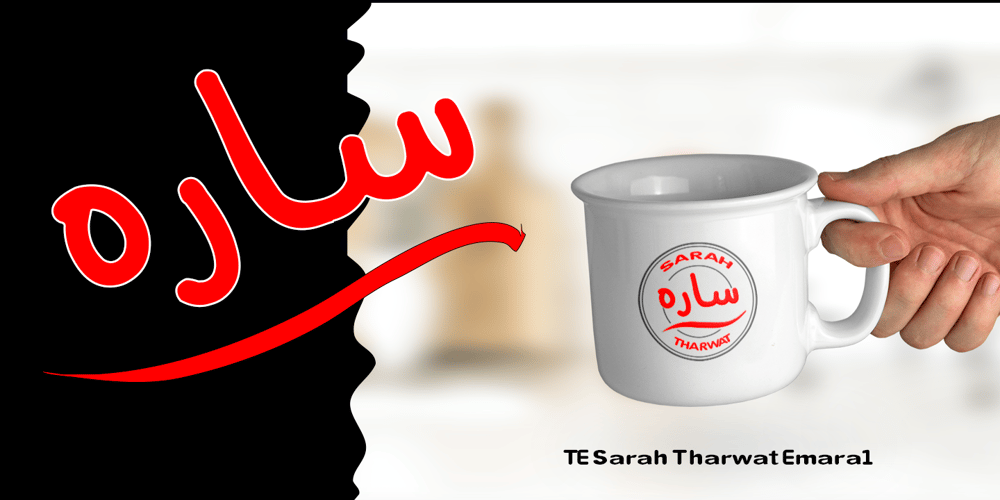
TE New Sarah
TE New Sarah Font Family was designed by Tharwat Mohamed Emara and published by Tharwat Emara. TE New Sarah contains 1 styles and family package options. Its one of the NEW SARAH ( Arabic – LATIN – URDO) fonts, a spontaneous free line characterized by beauty and speed of reading. To be used in advertisements, writing titles, magazines, cartoons, films, serials, comics and plays. NEW SARAH font is one of the ( Arabic – LATIN – URDO) fonts. It is the most common font and is written in most Arab countries because it has the potential to be written in a narrow space when compared to other Arabic fonts. It is used in the titles of books, magazines, daily newspapers, commercials, banners, advertising, holiday cards, newspaper headlines, Introduction to students.